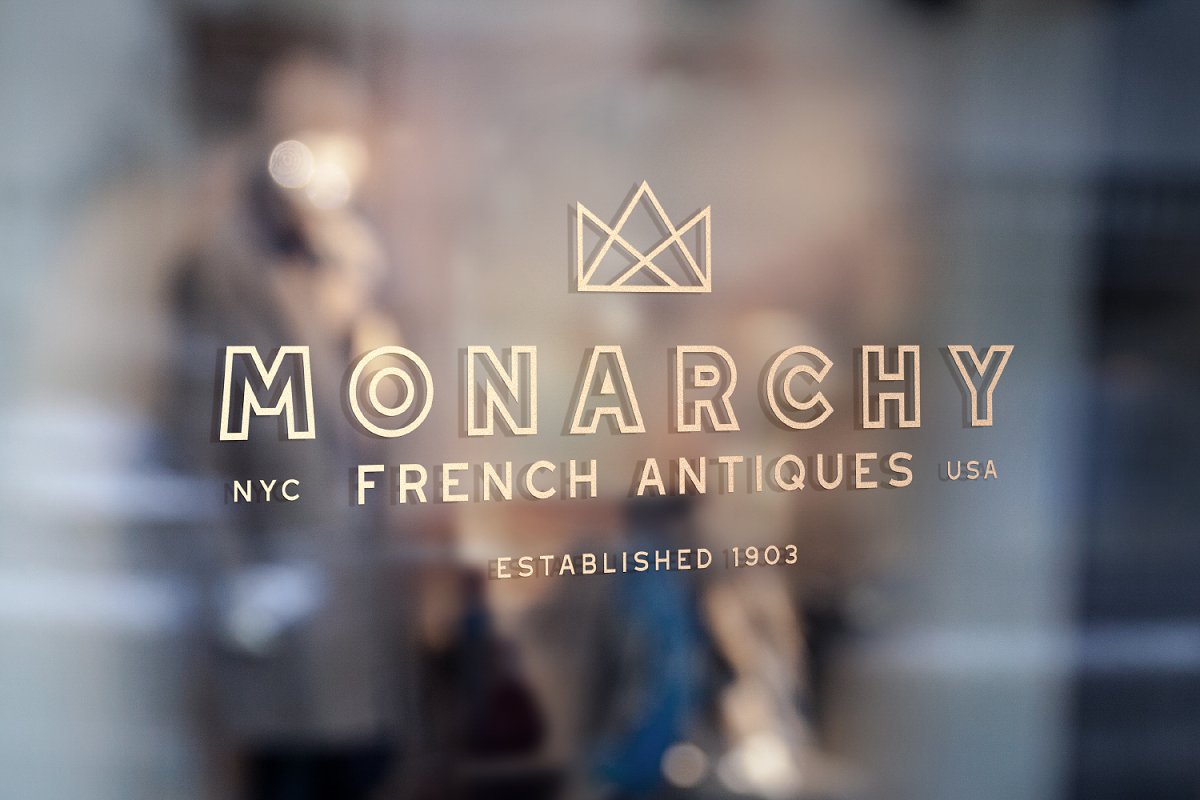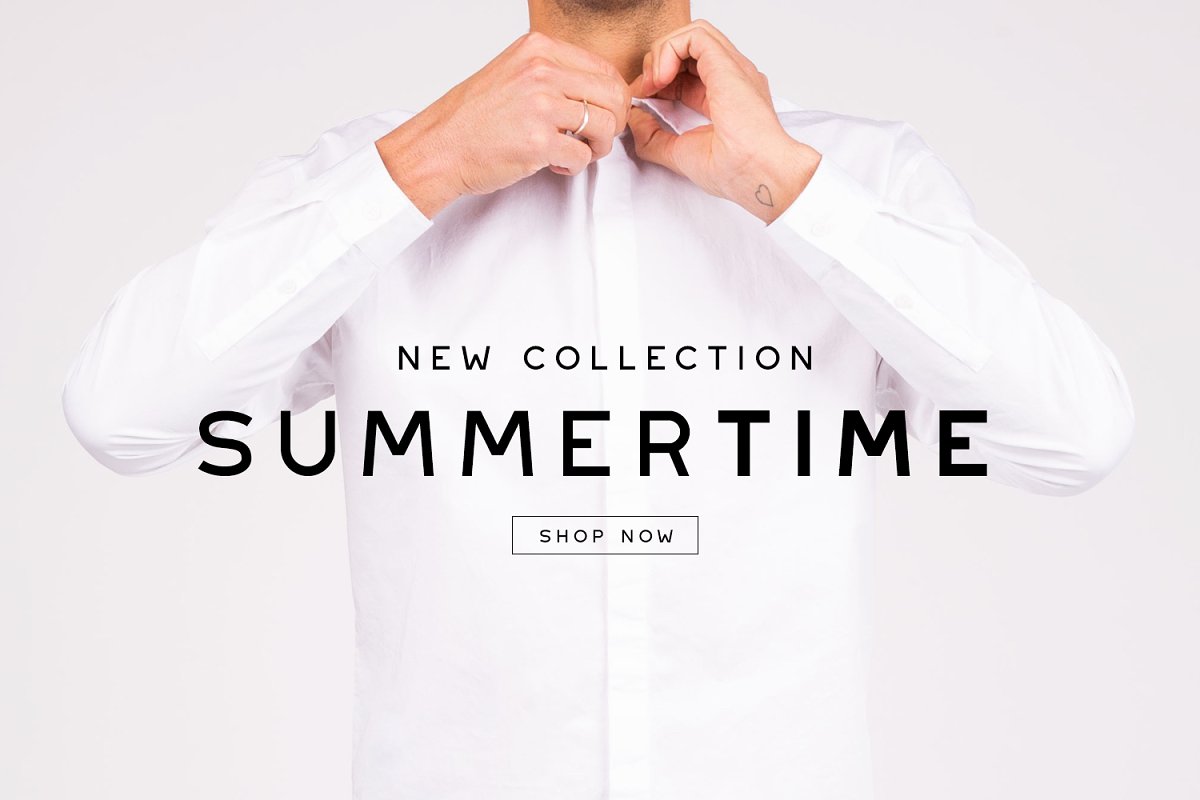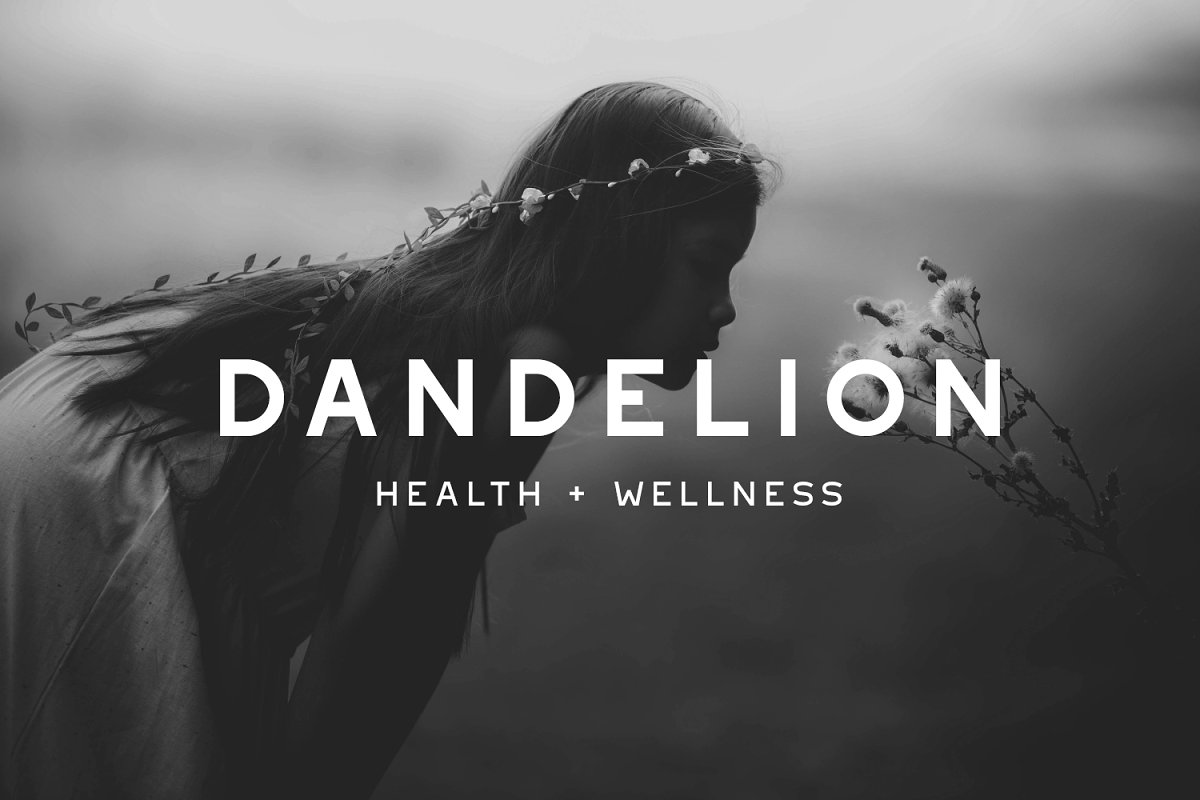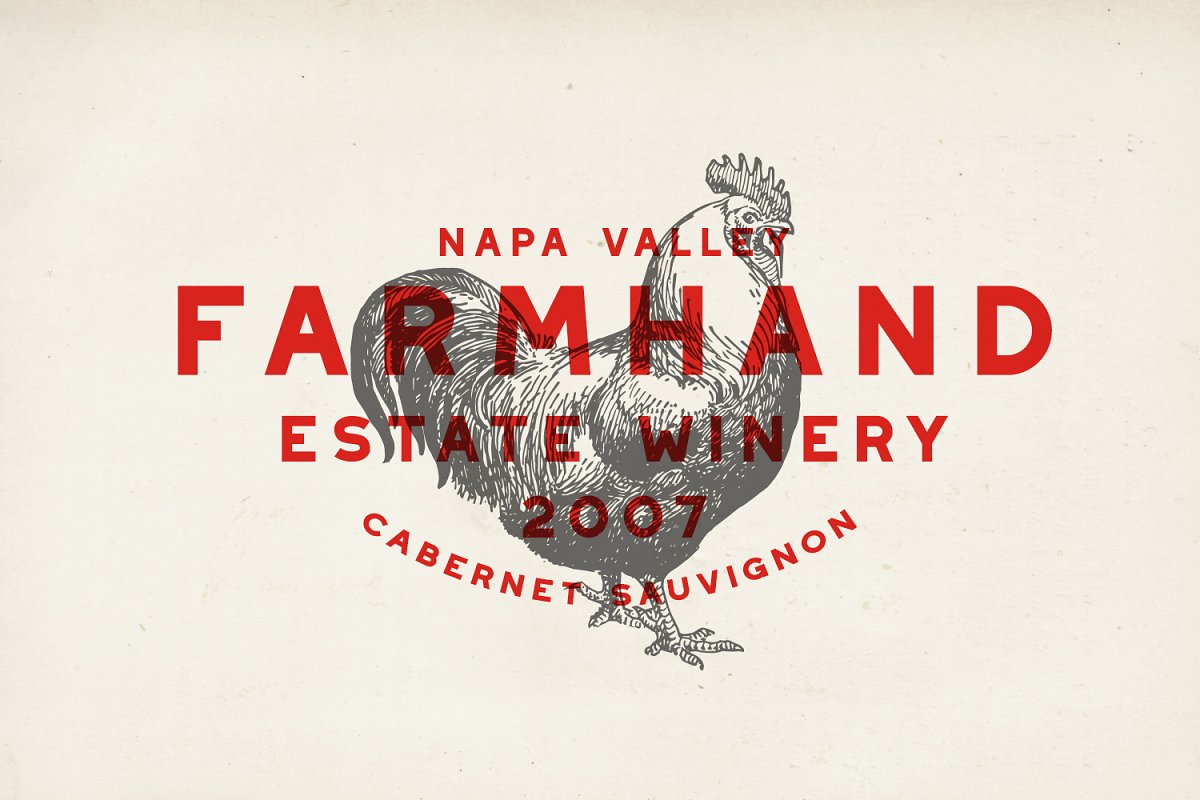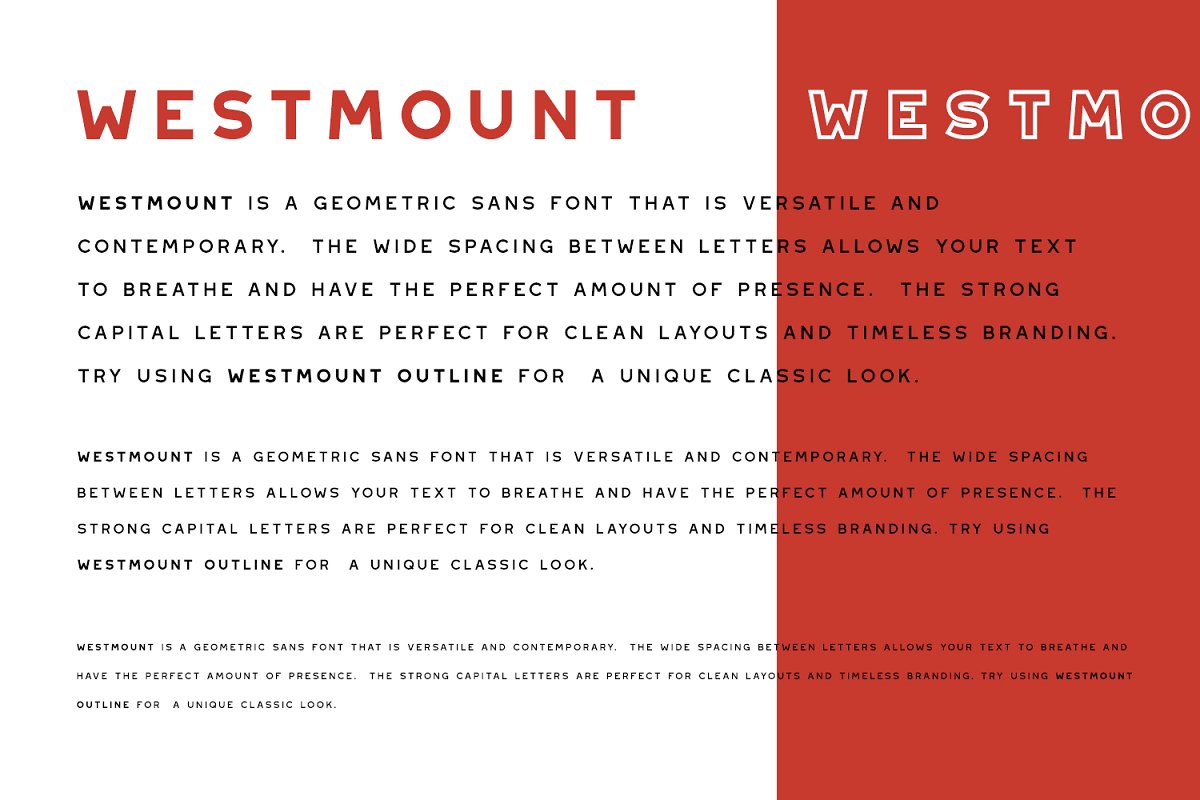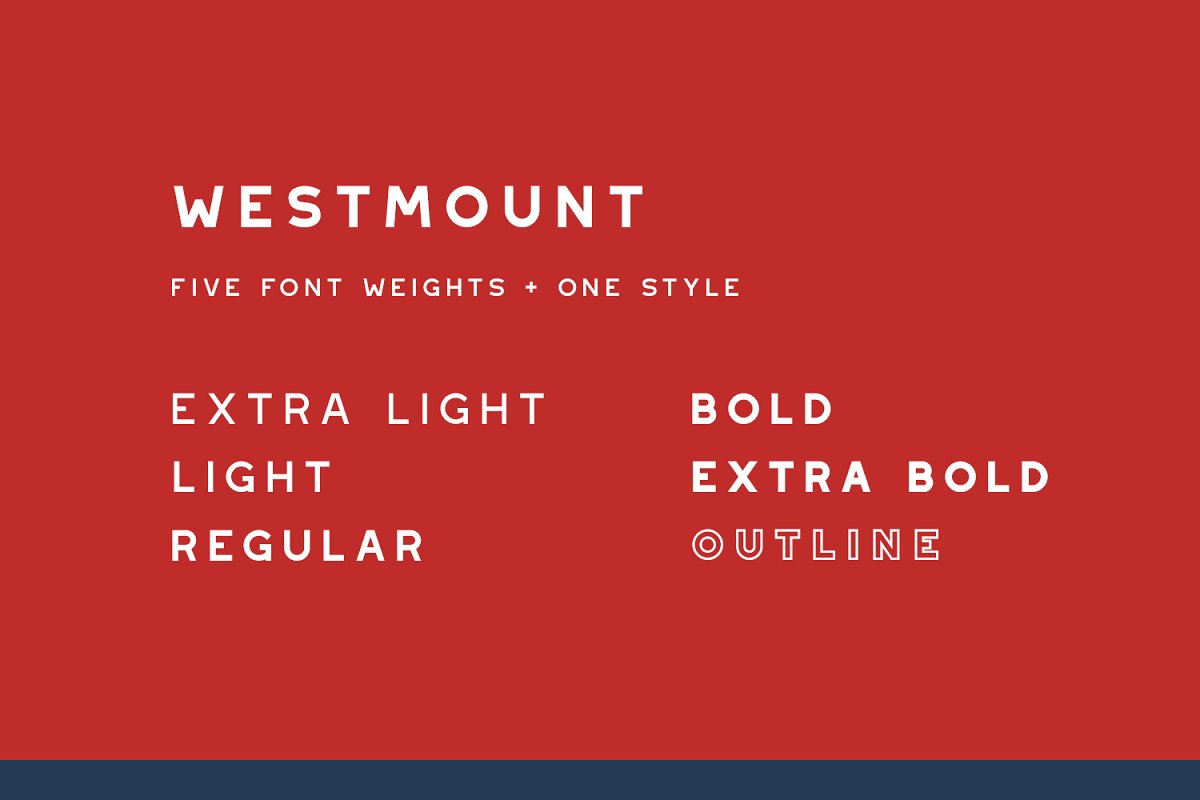
About the Westmount Sans Serif Font
Westmount is a geometric sans font that is both versatile and contemporary, The wide spacing between letters gives your text room to breathe and have the perfect amount of presence and balance, The strong capital letters are perfect for clean layouts and timeless branding, Try using Westmount Outline for a unique classic look, Hit that buy button and start making timeless beautiful designs!Includes 6 Font Styles:Westmount – Extra LightWestmount – RegularWestmount – BoldWestmount – Extra BoldWestmount – OutlineLanguage Support – We’ve added in a great deal of extra characters to support many different languages